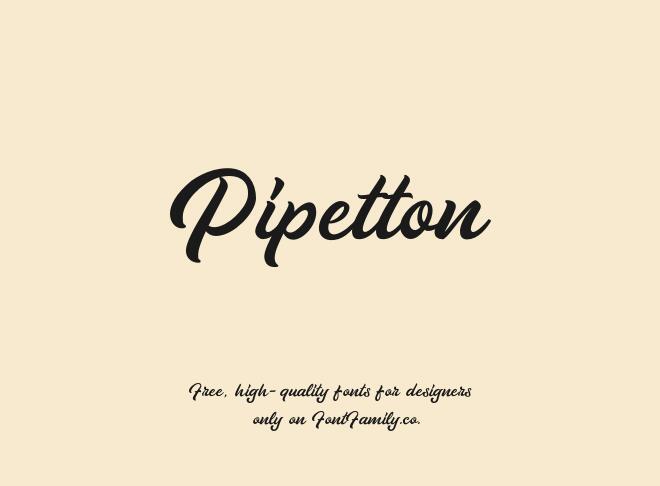
Pipetton Font
Pipetton Font, designed by the talented Letterhend Studio, is a modern handwritten script font with a playful yet elegant feel. Its unique style makes it stand out from other fonts, making it an excellent choice for various design purposes. Pipetton Font's characters are beautifully crafted with a balanced mix of thick and thin strokes, perfect for logos, invitations, greeting cards, and branding. Its modern and playful style is reminiscent of handwriting, adding a personal touch to your designs. It's a free font for personal use, making it a valuable addition to any designer's toolkit. With Pipetton Font, you can add a touch of elegance and modernity to your designs, making them more appealing and engaging.